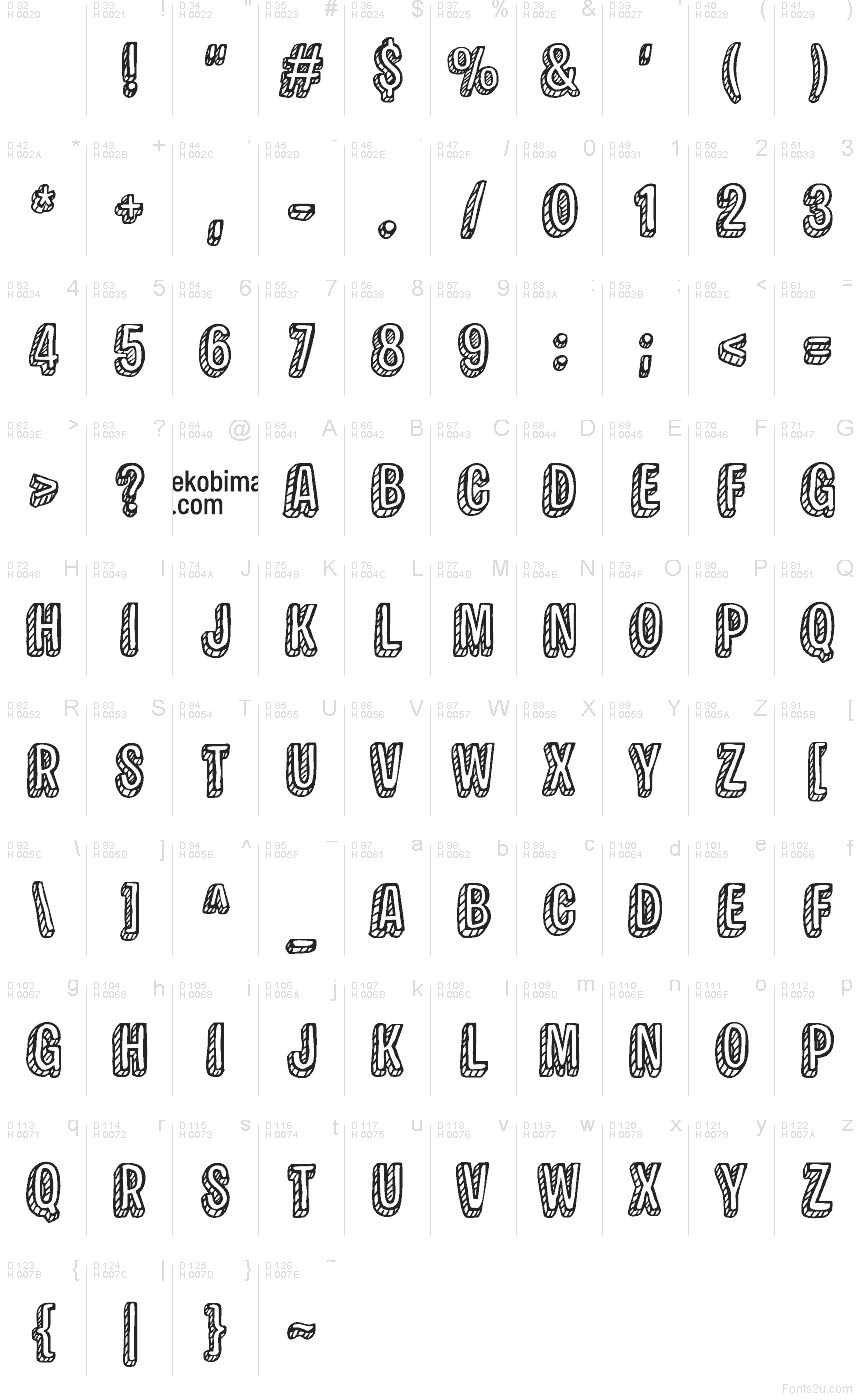
Paper Scratch
Paper Scratch font by Eko Bimantara is a free cartoon 3D display typeface that looks like it’s been doodled right on notebook paper. Chunky letterforms are packed with diagonal scratch lines and framed by a bold outline, giving every word a hand-drawn, bouncy feel. It has that scribbly, marker-on-cardboard texture that instantly feels playful, loud, and a little bit messy—in the best way.
Using Paper Scratch, headlines jump off the page like comic sound effects or cut-out craft letters. This free font shines on kids’ posters, school projects, activity books, game titles, stickers, and YouTube thumbnails where energy and fun matter more than polish. Set it large for maximum impact, and pair it with a simple rounded sans-serif for body text so the busy, scratched interiors really stand out.